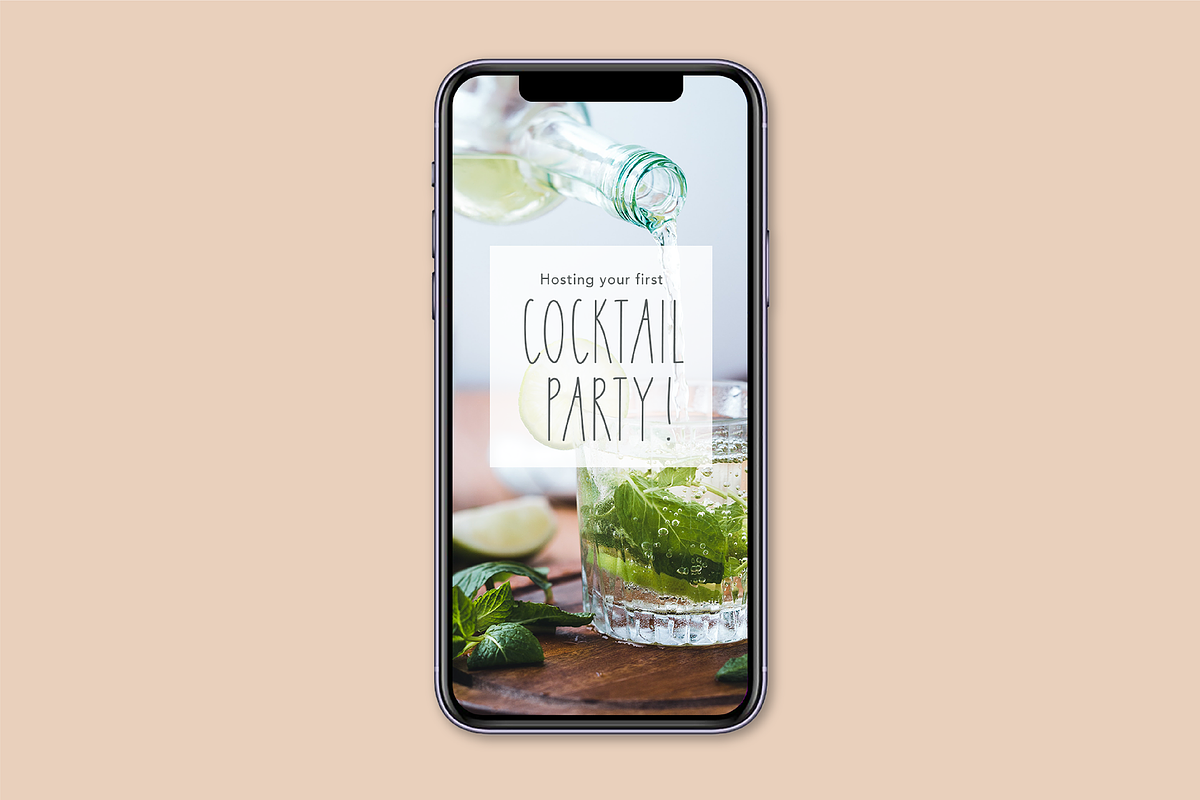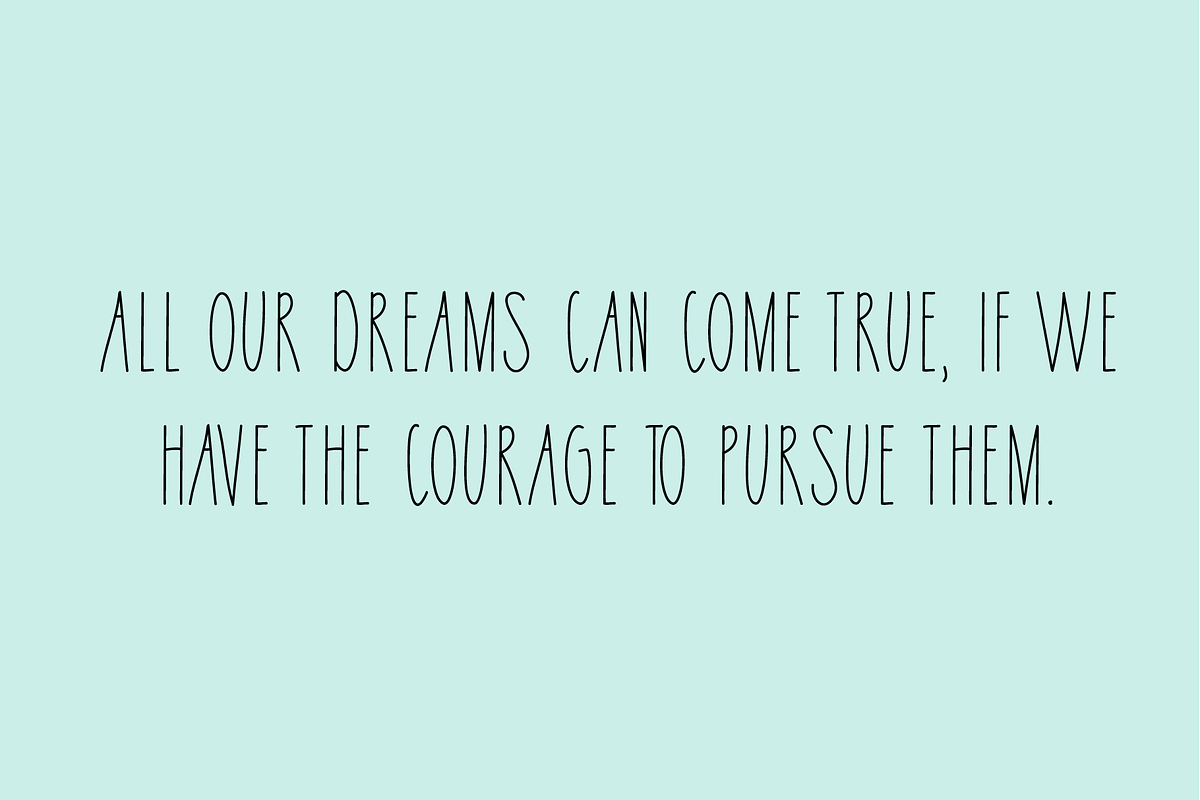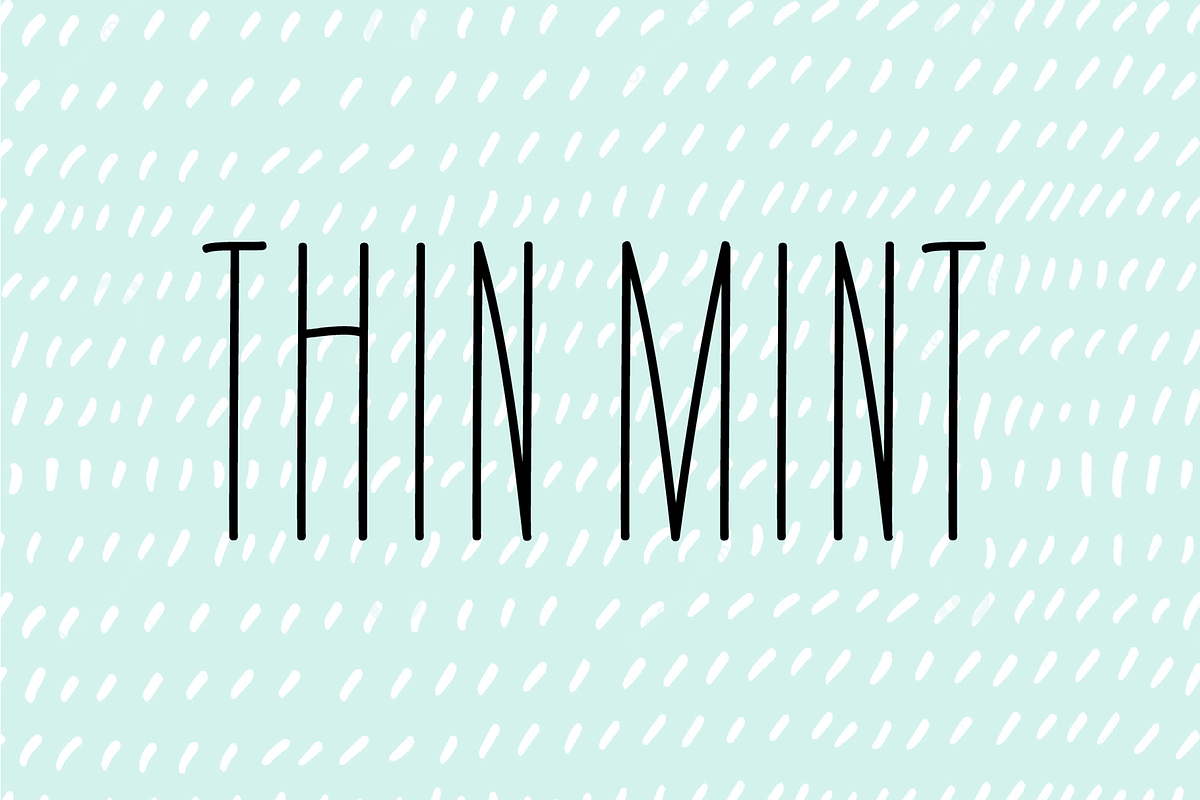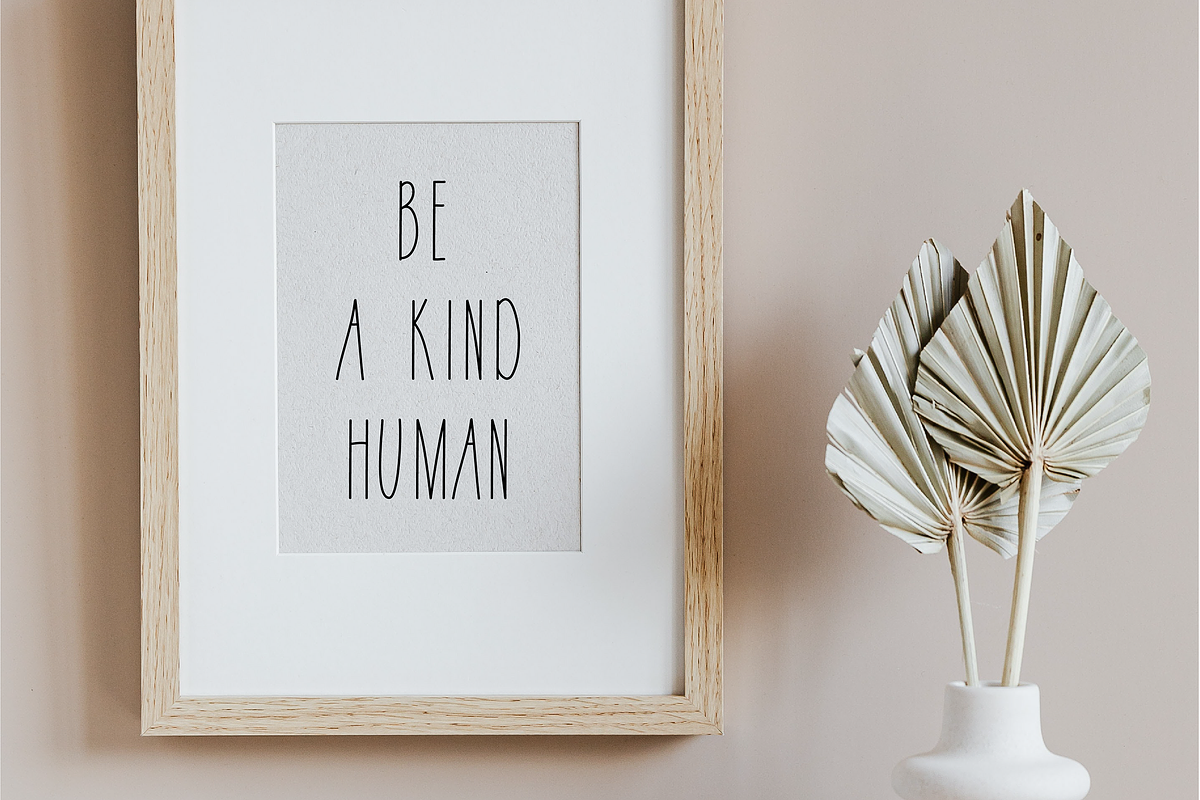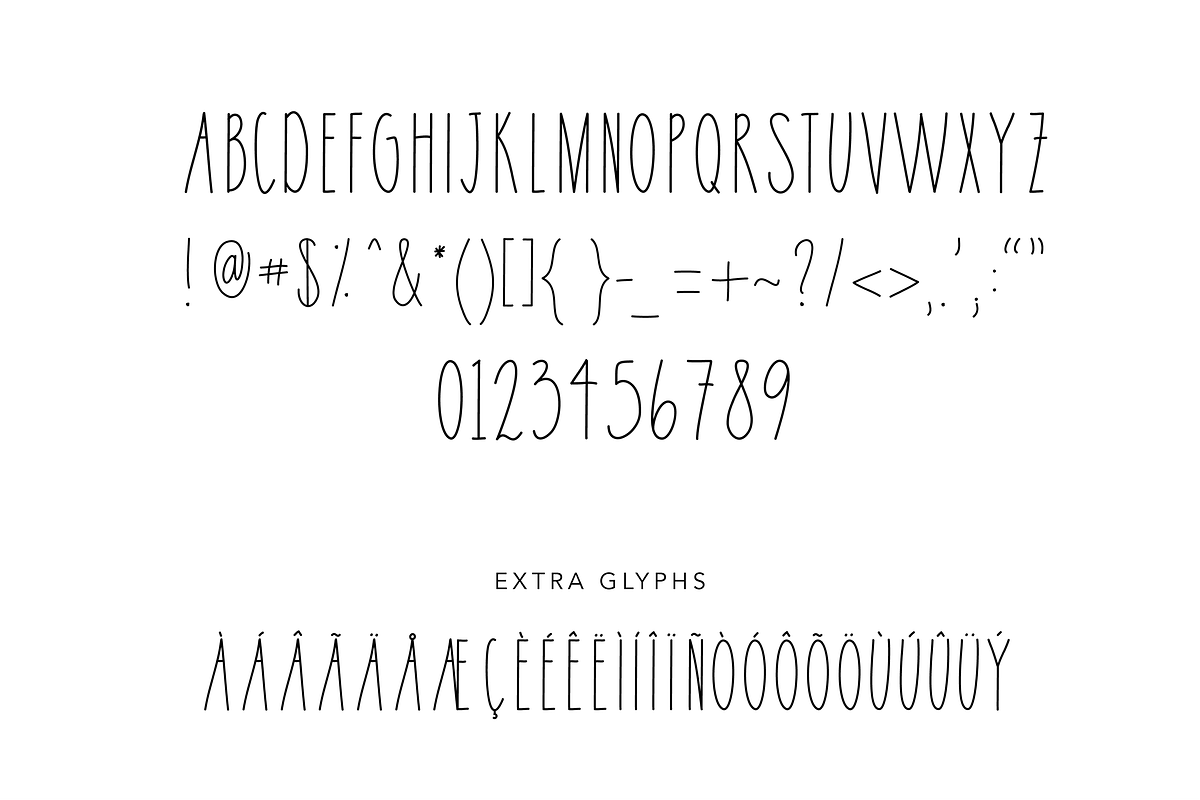
Thin Mint Font
Thin Mint is a tall, modern, all-caps font that is perfect for blogs, invites, social media overlays, photo overlays, greeting cards, marketing materials, etc.
This font includes upper and lowercase glyphs, numbers, and punctuation. It also includes language support for common letters.